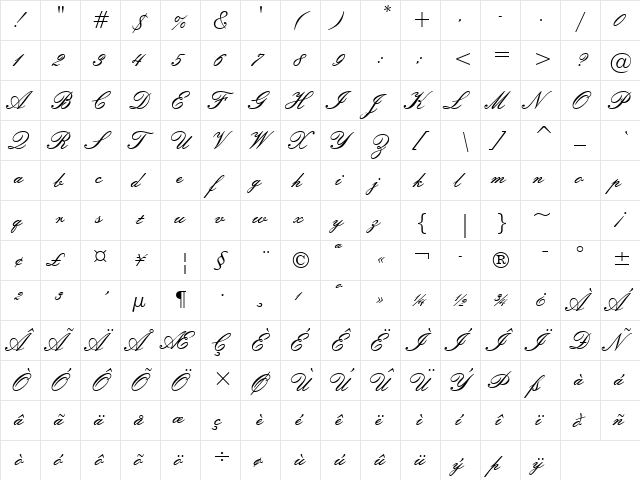
Embassy Regular Font Preview
Embassy Regular
Embassy Regular Font Details
Design Context for Embassy Typeface
Embassy is a composed and adaptable typeface that performs quietly and consistently across a wide range of design contexts.